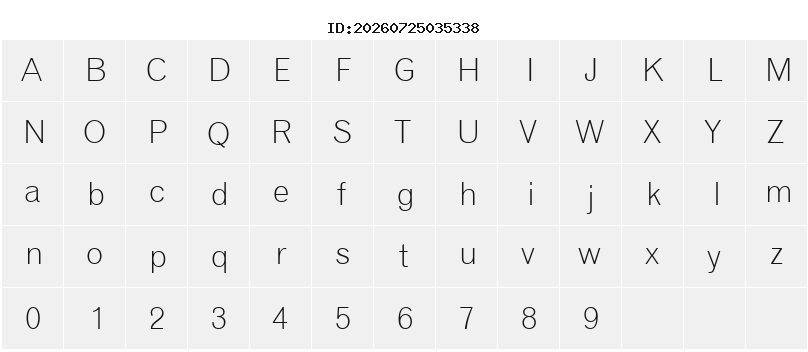
• Font Name: Gothic720 Lt BT
• Font Style: Light
• Font ID: Gothic 720 Light
• Full Font Name: Gothic720 Lt BT Light
About Gothic720 Lt BT.ttf
Gothic720 Lt BT.ttf is a modern, elegant sans-serif font designed for ultimate readability and visual harmony. Perfect for branding, headlines, web design, and print materials.